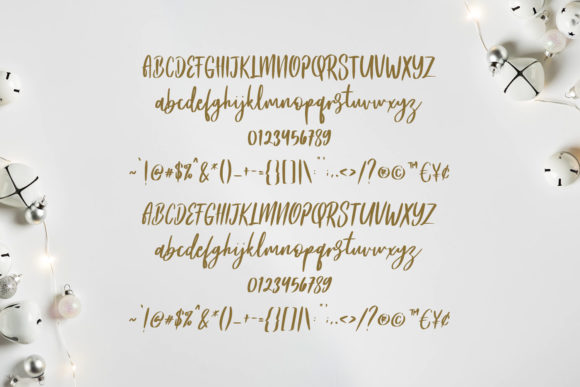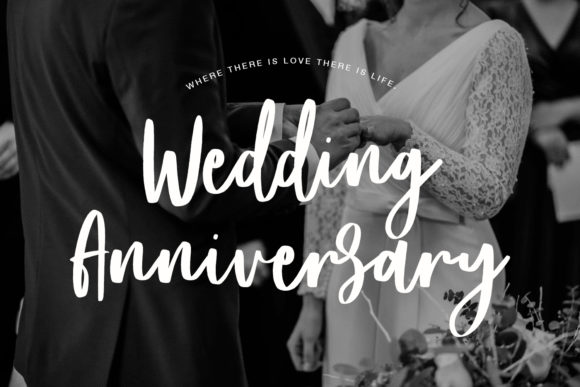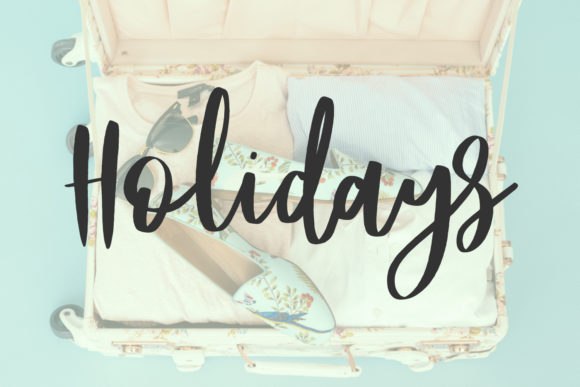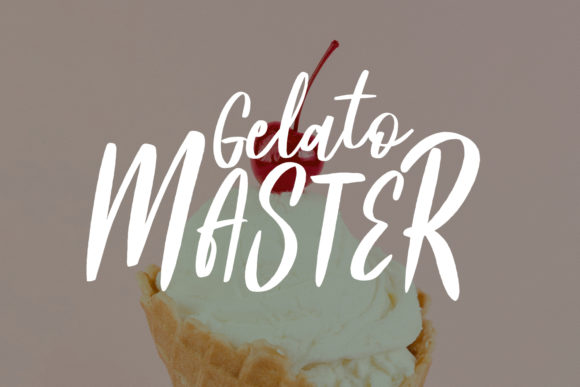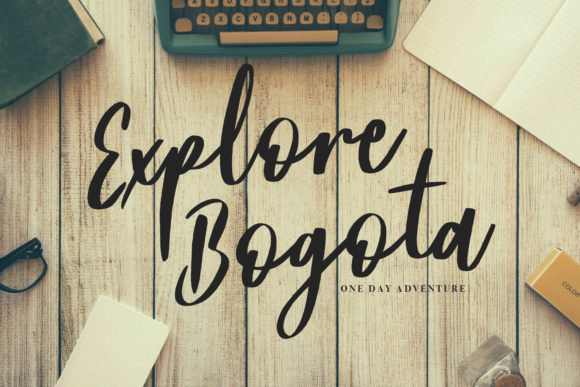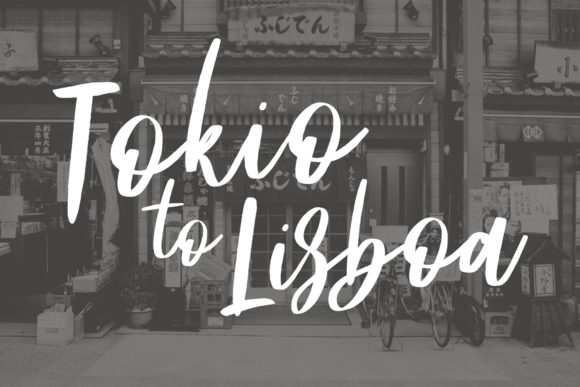
Discover the Charm of Frances Font: A Romantically Playful Script Font
Are you a designer or crafter looking for a font that can add a touch of elegance and whimsy to your projects? Look no further than Frances Font, a fancy handwritten script font that is sure to capture your heart. With its lovely curves and romantically playful charm, Frances Font is the perfect choice for anyone looking to add a bit of sophistication and personality to their work.
What is Frances Font?
Frances Font is a beautifully designed script font that features intricate and flowing curves, giving it a luxurious and refined feel. The font is the brainchild of a talented type designer who sought to create a font that would evoke the romance and elegance of traditional handwritten scripts. With its unique blend of classic and modern elements, Frances Font is sure to stand out in any design or craft project.
Key Features of Frances Font
So, what makes Frances Font so special? Here are just a few of its key features:
- Lovely Curves: Frances Font features beautifully crafted curves that give it a smooth, flowing feel. The curves are intricate and detailed, making the font perfect for designs that require a high level of elegance and sophistication.
- Romantically Playful Charm: Despite its elegant appearance, Frances Font also has a playful side. The font features a range of subtle quirks and imperfections that give it a charming, handmade feel.
- Handwritten Script: Frances Font is a true script font, designed to mimic the look and feel of handwritten writing. The font features a range of connecting letters and flowing strokes, making it perfect for designs that require a personal touch.
- Versatile: Frances Font is incredibly versatile, making it suitable for a wide range of design and craft projects. Whether you’re working on a wedding invitation, a branding project, or a craft pattern, Frances Font is sure to add a touch of elegance and sophistication.
Uses for Frances Font
So, what can you use Frances Font for? The possibilities are endless! Here are just a few ideas to get you started:
- Wedding Invitations: Frances Font is perfect for wedding invitations, with its elegant curves and romantic charm making it ideal for formal wedding designs.
- Branding: Add a touch of sophistication to your brand with Frances Font. The font is perfect for logos, business cards, and other marketing materials.
- Craft Patterns: Frances Font is a great choice for craft patterns, including knitting, sewing, and other DIY projects.
- Signage: Use Frances Font to create beautiful signs for your business or home. The font is perfect for directional signs, welcome signs, and more.
Tips for Using Frances Font
Here are a few tips for getting the most out of Frances Font:
- Use it sparingly: While Frances Font is beautiful, it can be overwhelming if used too much. Use it sparingly to add a touch of elegance to your design.
- Pair it with a sans serif font: For a beautiful contrast, pair Frances Font with a sans serif font. This will help to create a visually appealing design that is easy to read.
- Experiment with colors: Frances Font looks beautiful in a range of colors, from classic black and white to bold brights. Experiment with different colors to find the perfect look for your design.
In conclusion, Frances Font is a beautiful and versatile script font that is perfect for designers and crafters looking to add a touch of elegance and whimsy to their projects. With its lovely curves and romantically playful charm, Frances Font is sure to capture your heart. Whether you’re working on a wedding invitation, a branding project, or a craft pattern, Frances Font is the perfect choice.